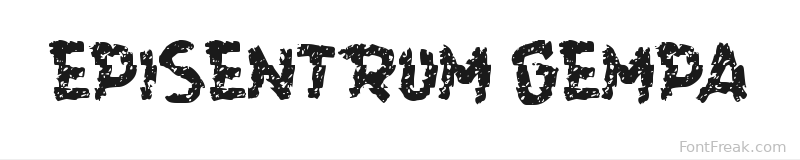
EPISENTRUM GEMPA
About EPISENTRUM GEMPA
EPISENTRUM GEMPA is a striking display font designed by Wahyu Eka Prasetya, falling under the category of decorative fonts. Characterized by its unique, rough-edged style, the typeface features irregular stroke weights that create a sense of movement and dynamism, making it perfect for grabbing attention. The contrast in the strokes enhances its visual appeal, while the uneven spacing between letters adds to its distinct personality, giving it a rugged, organic feel.
This font is versatile and can be used effectively in various contexts. It shines in creative applications such as movie posters, where its bold presence can evoke excitement and drama. Additionally, EPISENTRUM GEMPA works wonderfully for branding small businesses, especially those in the food and beverage sector, like quirky cafes or food trucks, where an informal yet eye-catching typeface can set the tone. For event materials, this font is ideal for festival flyers or concert promotions, capturing the essence of a vibrant atmosphere. Furthermore, it can add a unique touch to merchandise designs, making products stand out in a crowded marketplace.
Targeting graphic designers, small business owners, and content creators, EPISENTRUM GEMPA is a font that makes a statement. Its distinctive style is sure to resonate with audiences looking for something fresh and unconventional. The EPISENTRUM GEMPA font free download offers an opportunity for creatives to experiment with a typeface that embodies both character and charm.
What sets this font apart is its ability to convey a sense of authenticity and artistry, making it a memorable choice in any design project. With its eye-catching aesthetics and versatile applications, EPISENTRUM GEMPA is a valuable addition to any designer's toolkit.